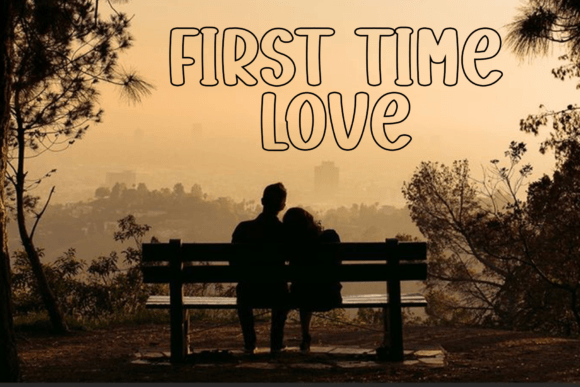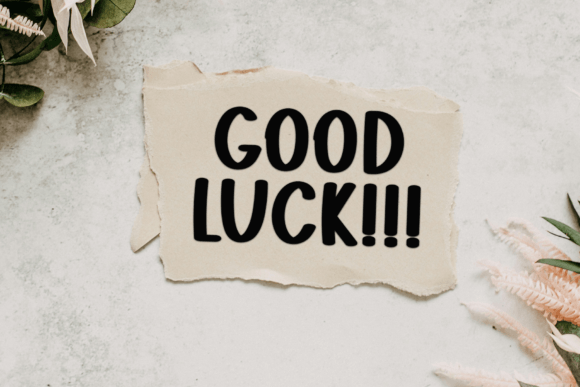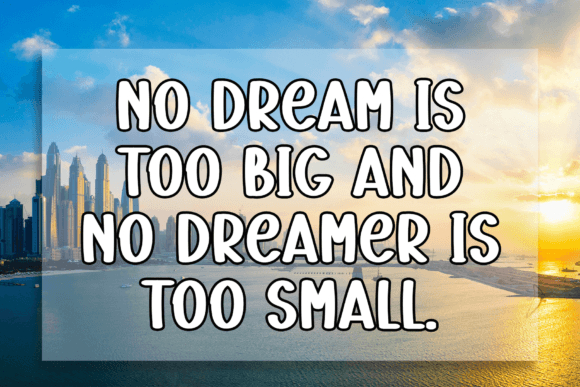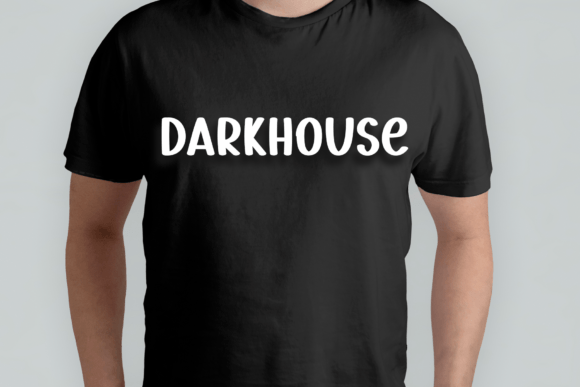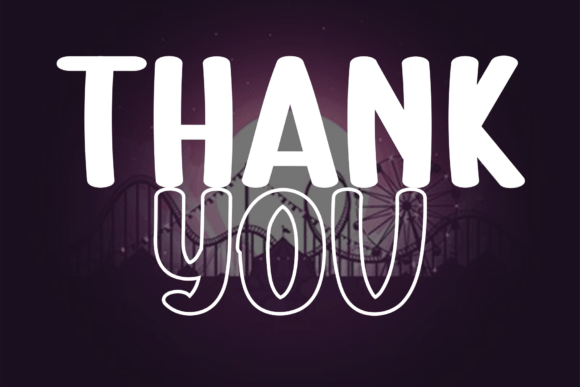
Introduction to Nighty Retro Font
Nighty Retro is a charming handwritten font imbued with a sense of freshness and casual elegance.
Its fluid strokes and organic lines evoke a laid-back vibe, making it perfect for various design projects Whether used for branding, invitations, or social media graphics, Back Space adds a touch of warmth and personality.
Key Features of Nighty Retro Font
Why Choose Nighty Retro Font?
Nighty Retro Font offers exceptional quality and versatility, making it a valuable addition to your design toolkit. Whether you’re creating for personal projects or commercial use, Nighty Retro Font delivers professional results.